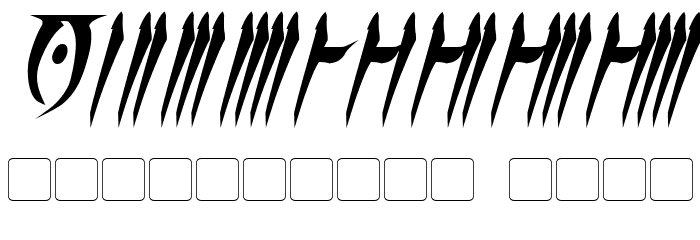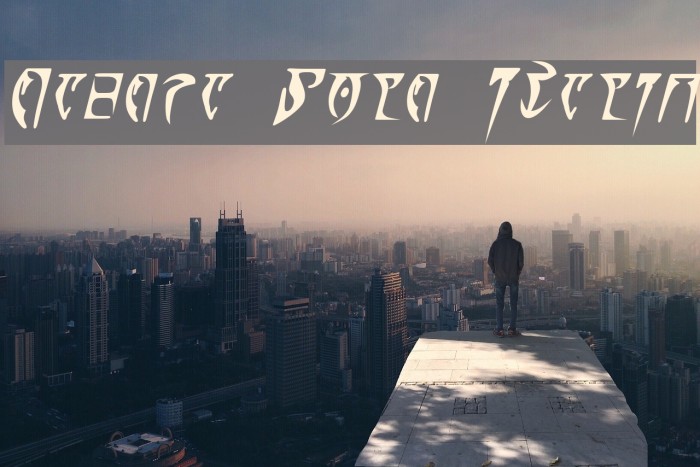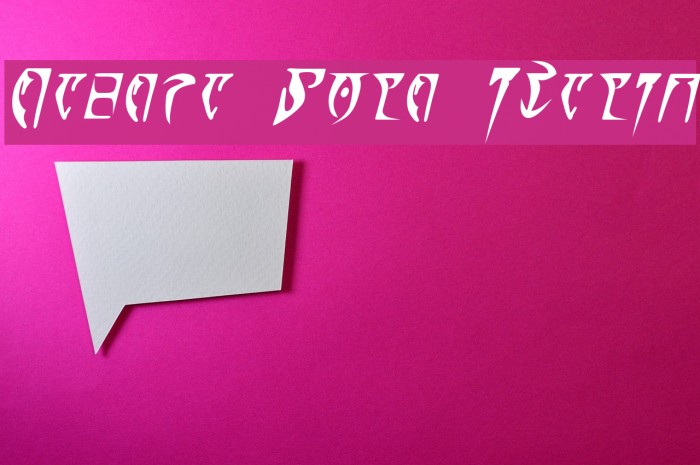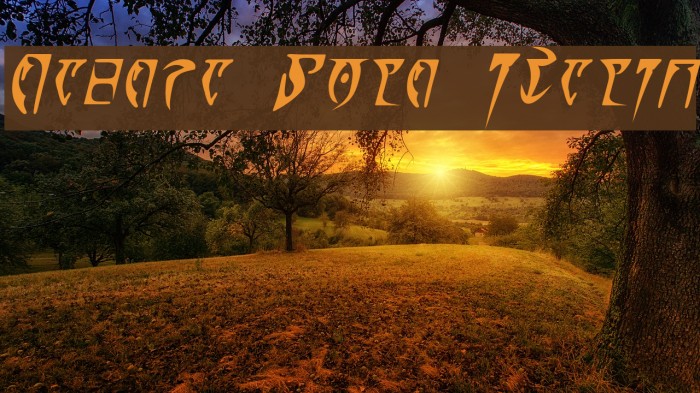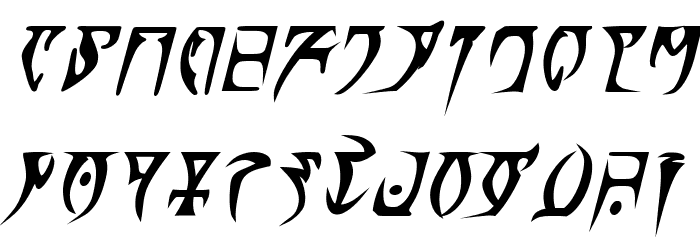
Daedra Bold Italic Font
This font features a bold and italicized style with sharp, angular edges and a distinctly otherworldly appearance. The characters are highly stylized, with elongated strokes and pointed serifs that give it a mystical and ancient feel. The design is reminiscent of runic or fantasy scripts, making it ideal for projects that require a touch of the fantastical or mythical. The boldness of the font ensures it stands out, while the italic slant adds a dynamic and fluid motion to the text.
A bold, italicized font with sharp, angular, and mystical design.
• Proposed Projects: Ideal for fantasy-themed projects, video game graphics, book covers, and posters that require a mythical or ancient aesthetic.
• Category: Decorative/Display
• Overall Style: Decorative, Mystical
• Use Case: Logos, Headlines, Posters